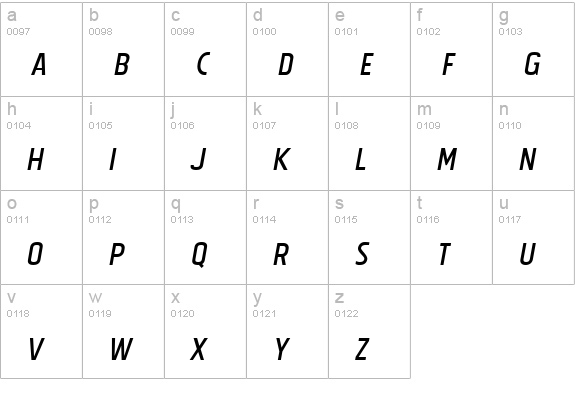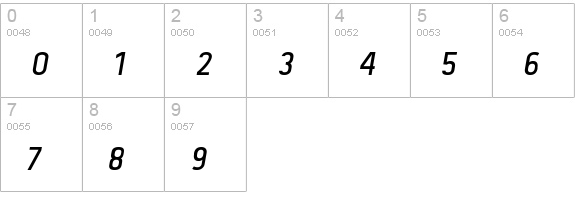
Tolyer Book no.2 Oblique is a comfortable, highly readable, italic variant in the Tolyer typeface family \xE2\x80\x94 well suited to long-form body text, articles, and editorial content.
Introducing Tolyer Book no.2 Oblique font, a versatile and elegant typeface designed to bring a touch of sophistication to your projects. This unique font features stylish slanted characters that add a modern twist to any design, making it perfect for various applications such as branding, editorial design, and more. What's even better is that Tolyer Book no.2 Oblique font is available for free download at FontsMarket.com! That's right, you can elevate your designs with this premium font without spending a dime. Don't miss out on this fantastic opportunity to enhance your creative projects with the beauty and charm of Tolyer Book no.2 Oblique font. Download it now and let your creativity shine!